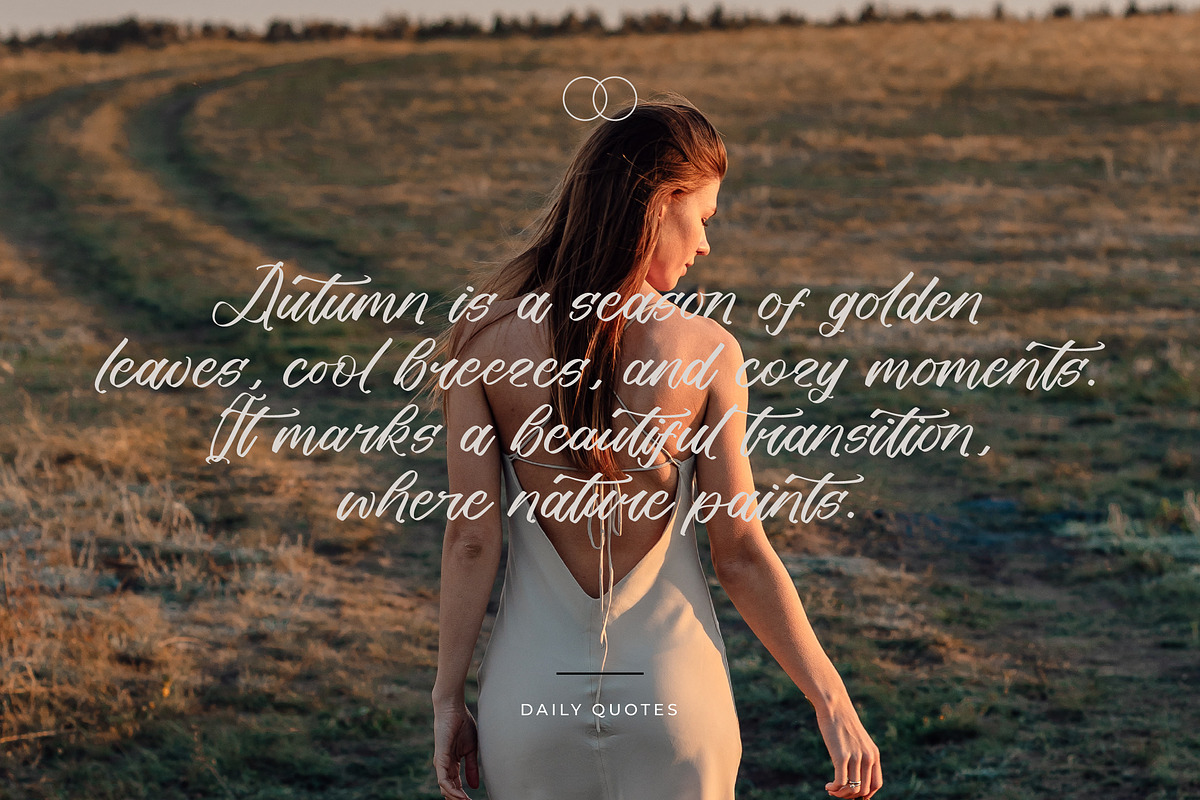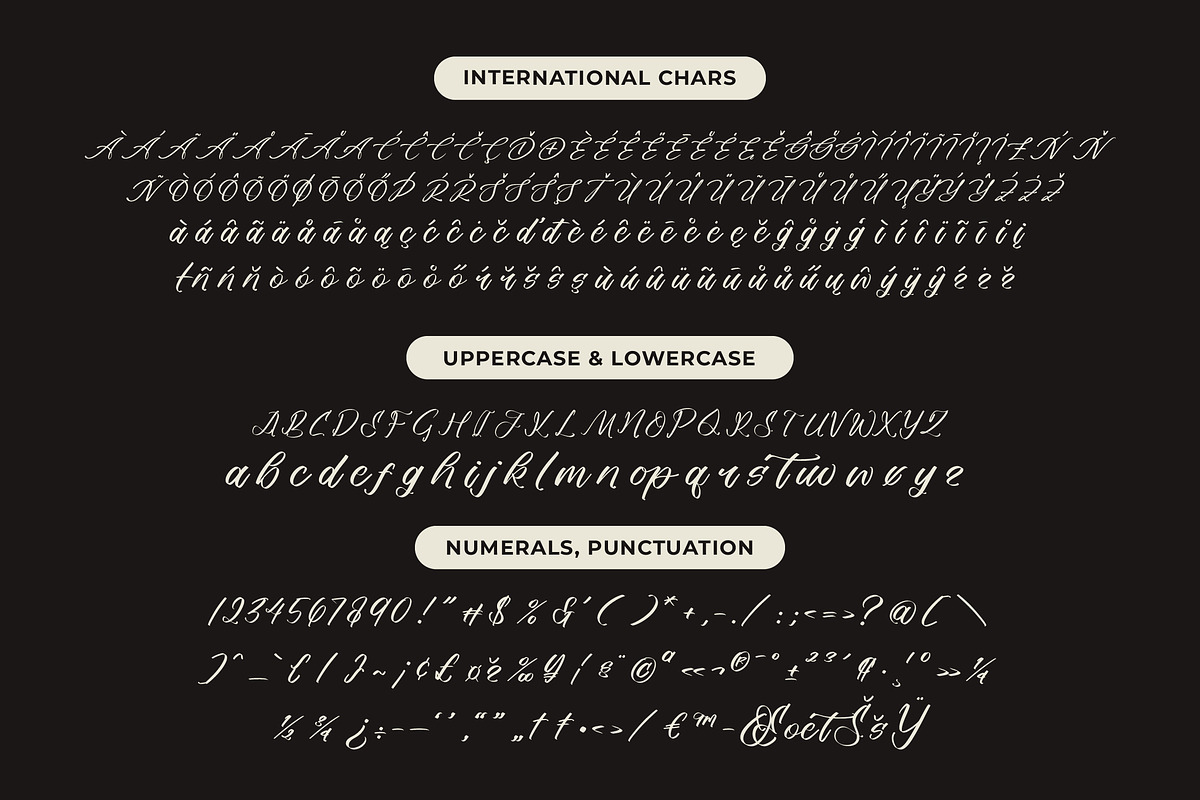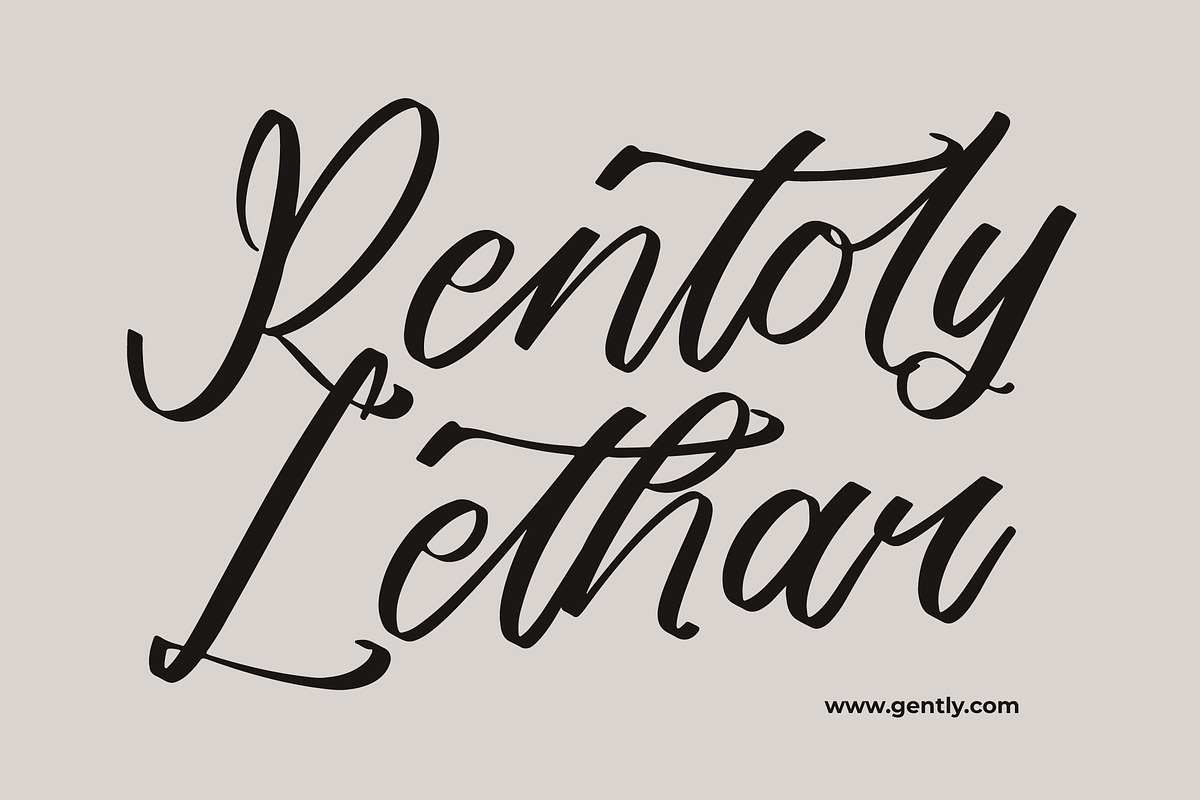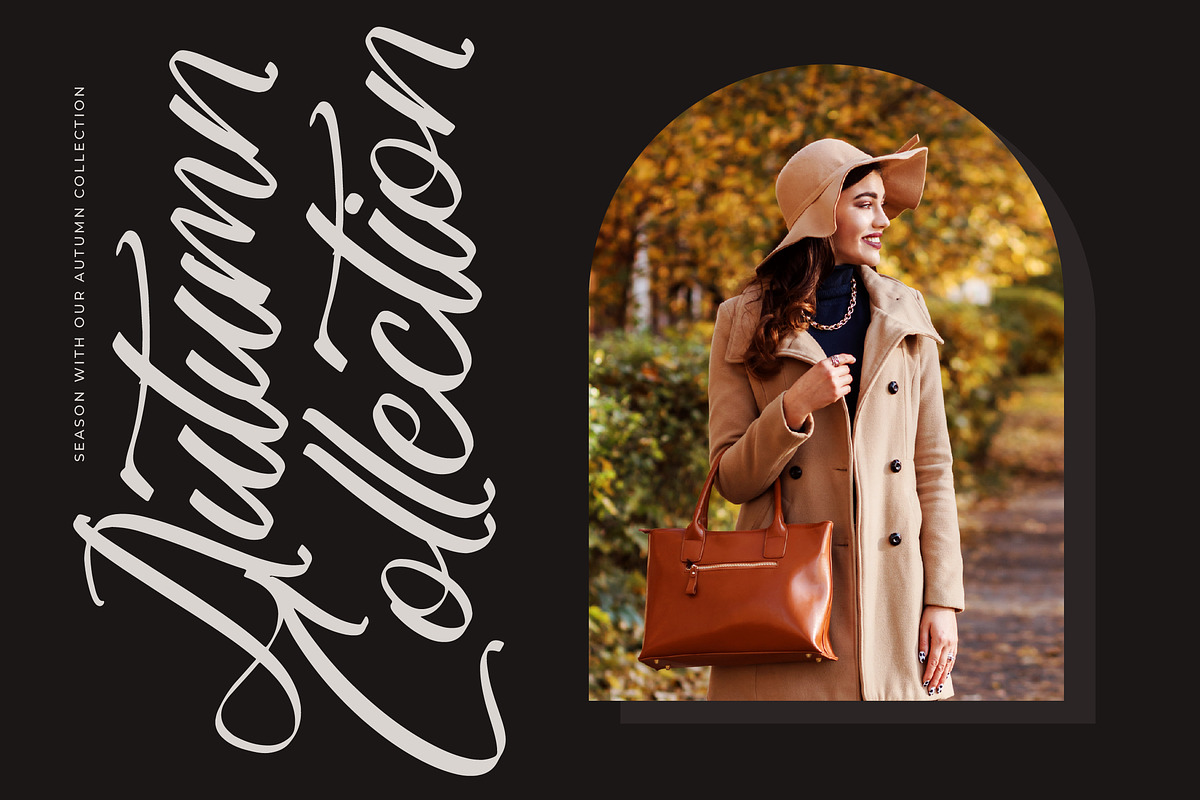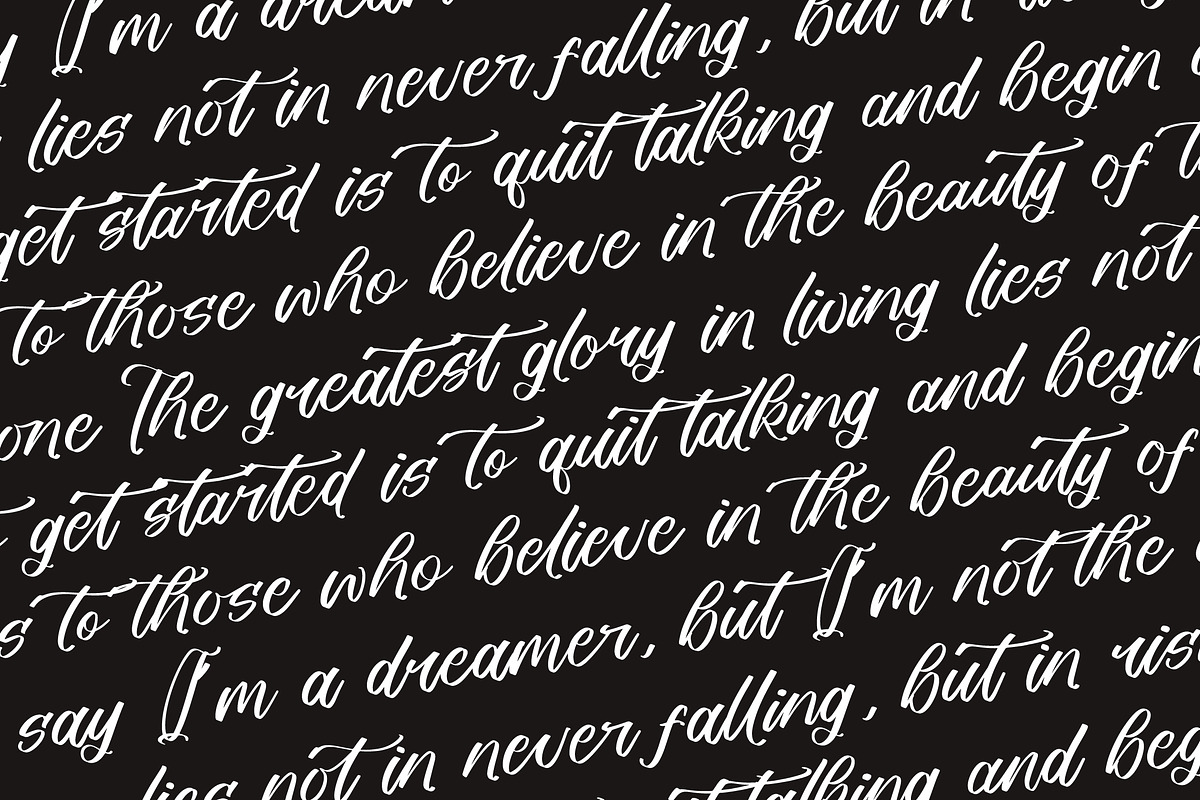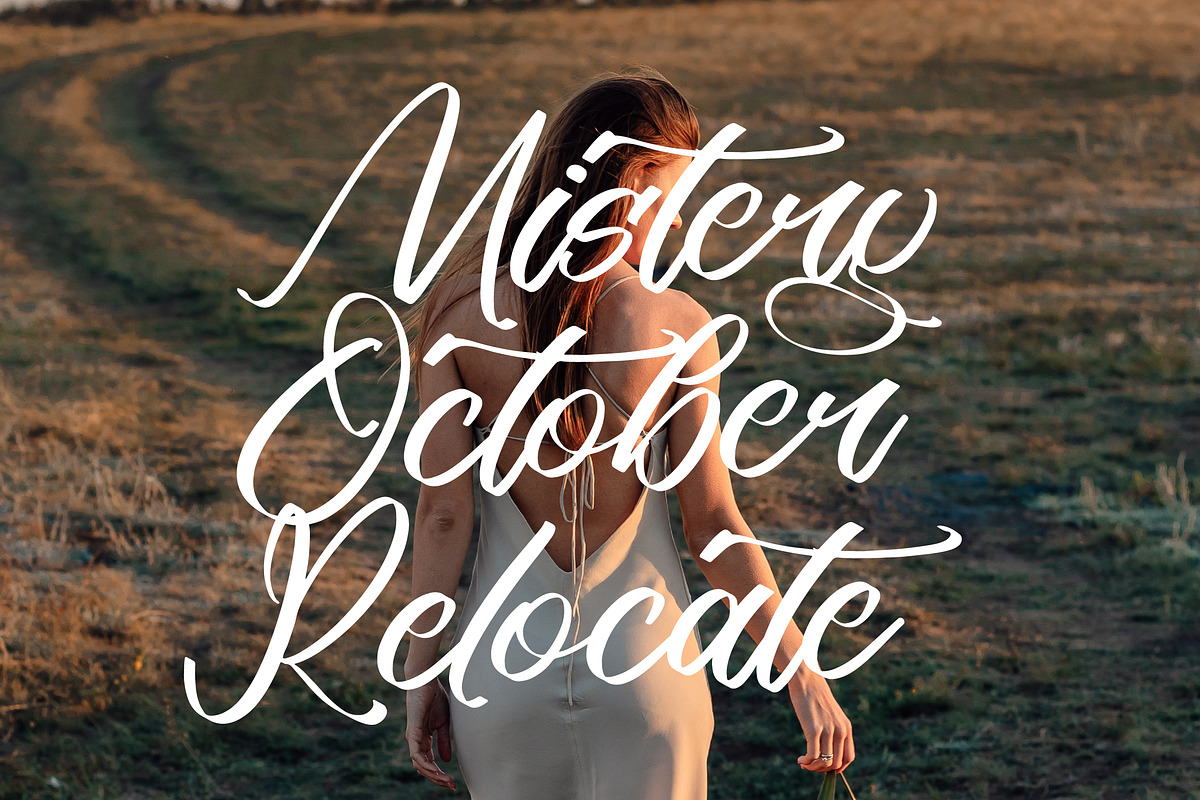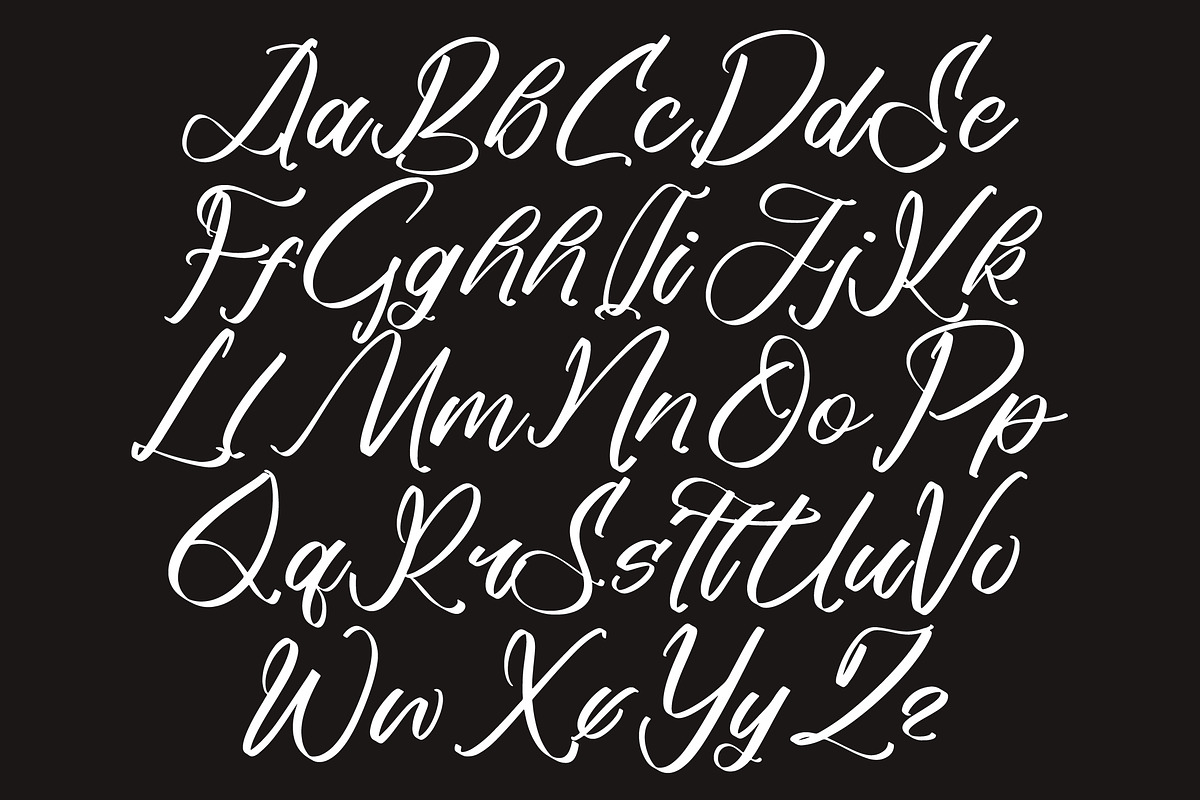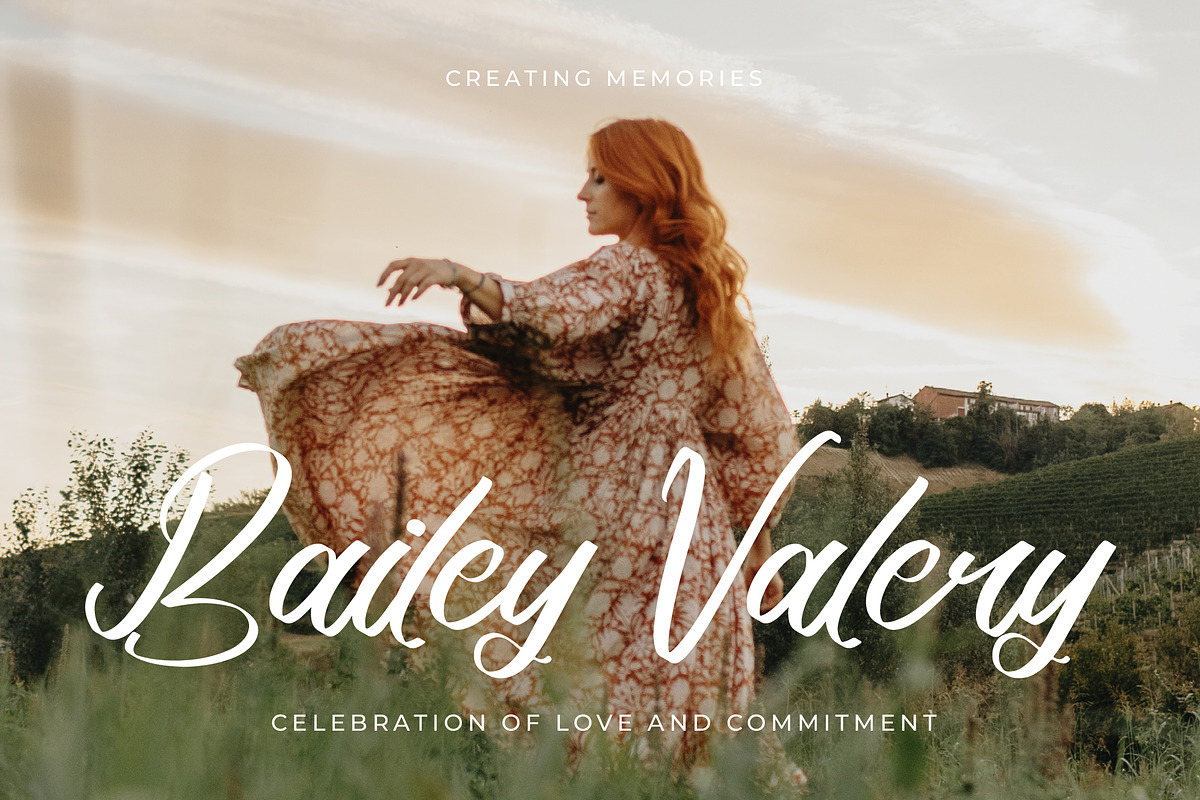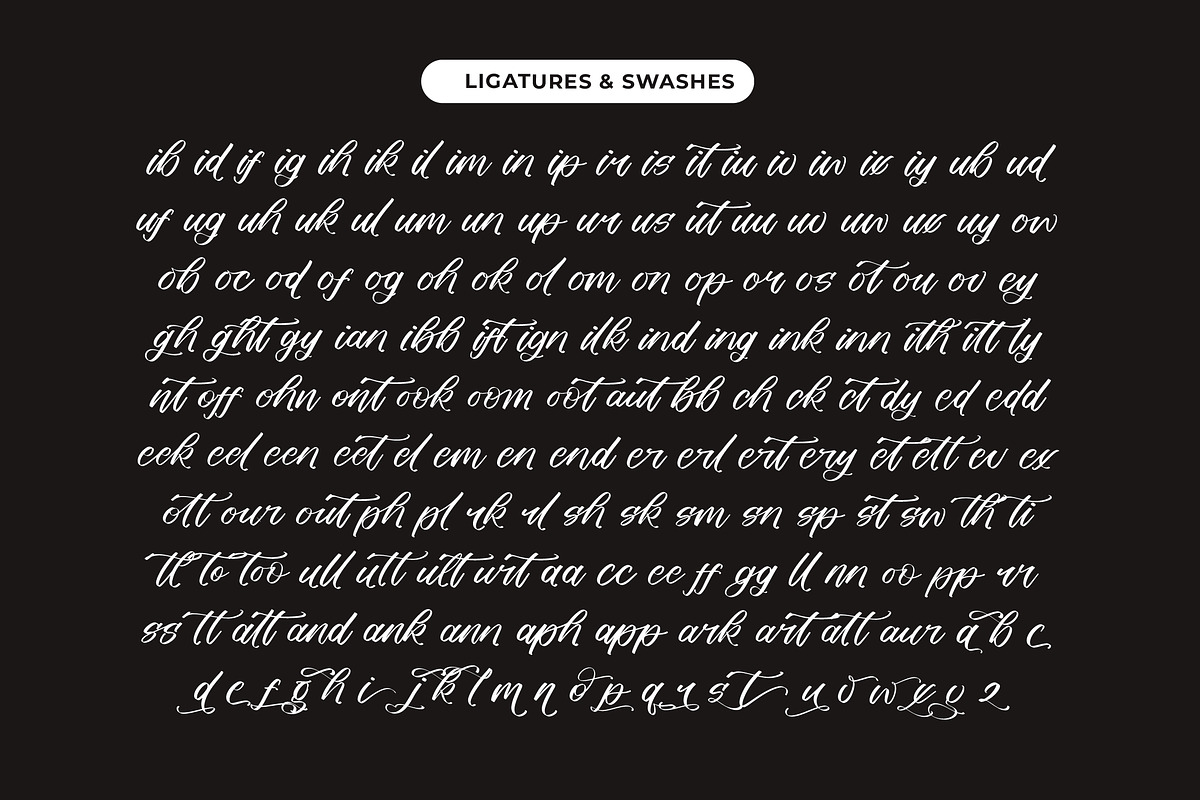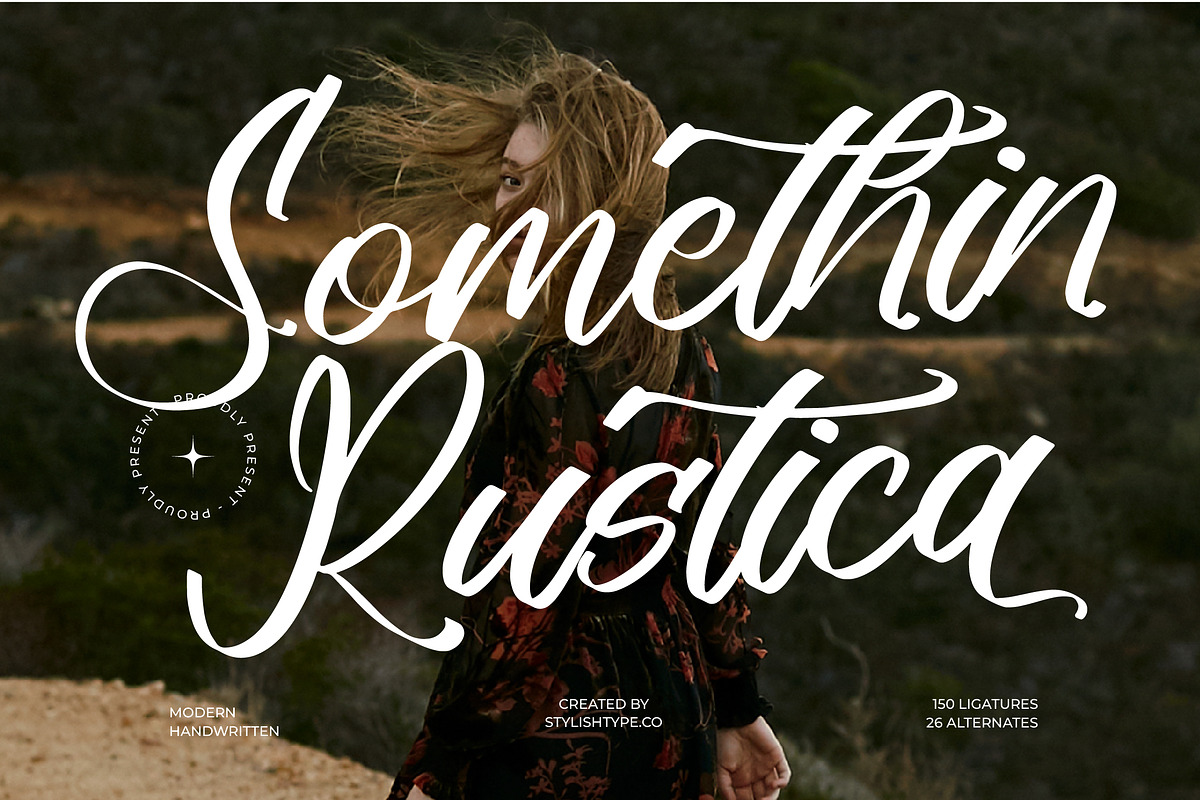
Somethin Rustica Modern Handwritten
Somethin Rustica - Modern Handwritten Font , from Stylishtype.Co , Suitable for any projects such as: logos, branding projects, homeware designs, product packaging, mugs, quotes, posters, shopping bags, t-shirts, book covers, name card, invitation cards, greeting cards, label, photography, watermark, special events, and all your other luxury and beautiful projects that need a Luxury Script taste.
- 150 Ligature 26 Alternates & Swashes